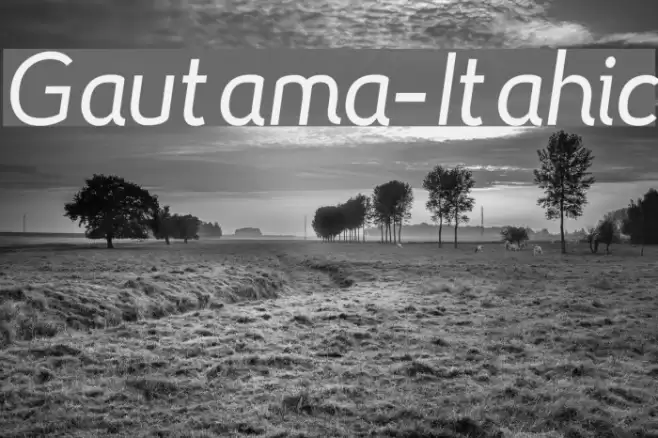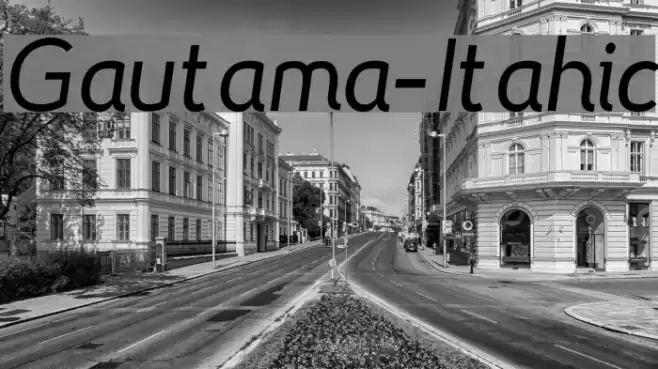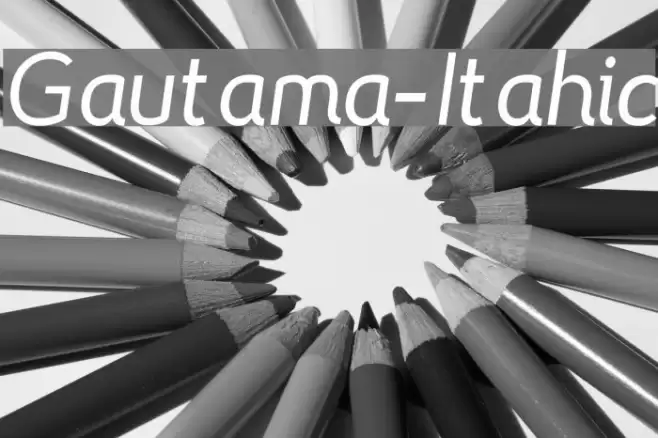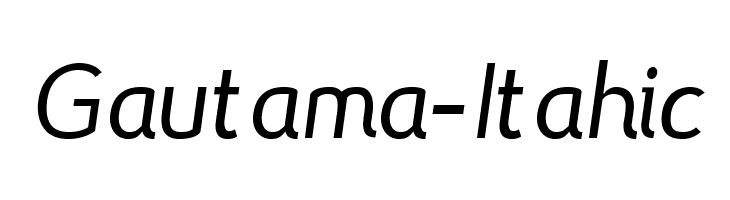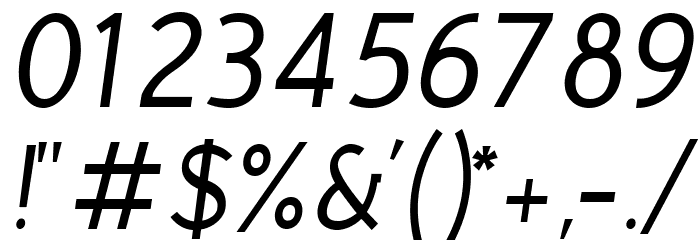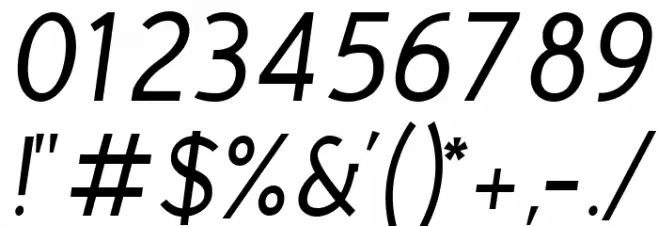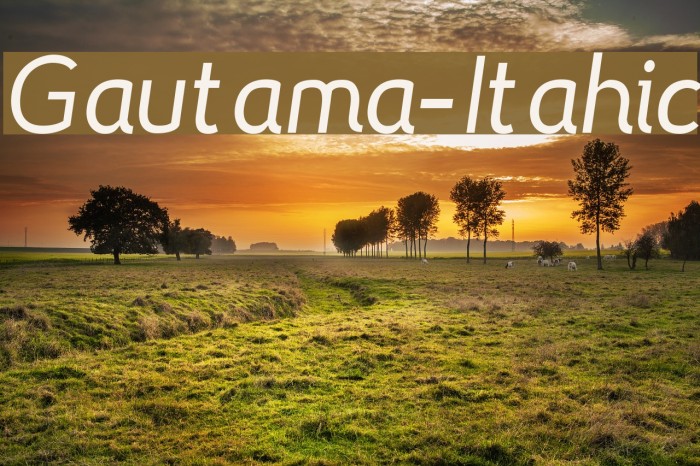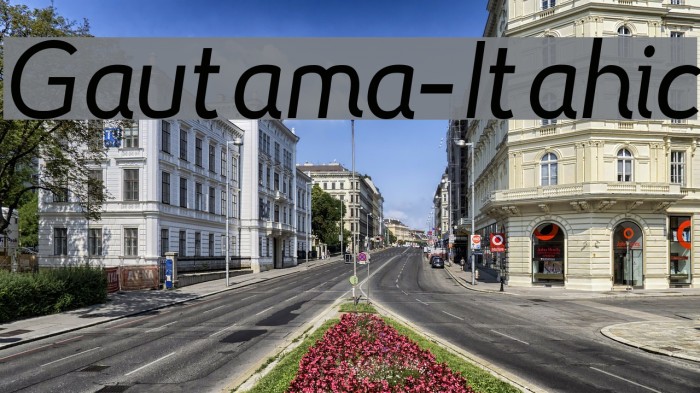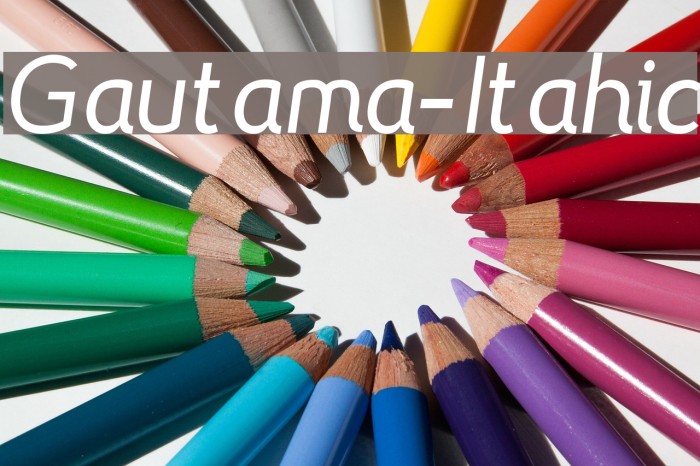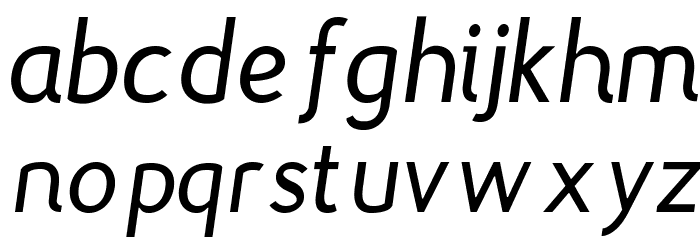
Gautama-Italic Font
Gautama-Italic Description
This font features a sleek and modern italic style, characterized by its clean lines and smooth curves. The letters have a slight forward slant, giving them a dynamic and elegant appearance. The uppercase letters are tall and narrow, while the lowercase letters maintain a consistent height, contributing to a harmonious and balanced look. The numerals are clear and legible, with a uniform width that complements the overall design. Special characters are well-integrated, maintaining the font's cohesive aesthetic. This font's simplicity and clarity make it versatile for various design applications.
A sleek, modern italic font with clean lines and smooth curves from Uncategorized fonts.
- Proposed Projects: Ideal for branding, editorial design, and digital interfaces where a modern and elegant touch is desired.